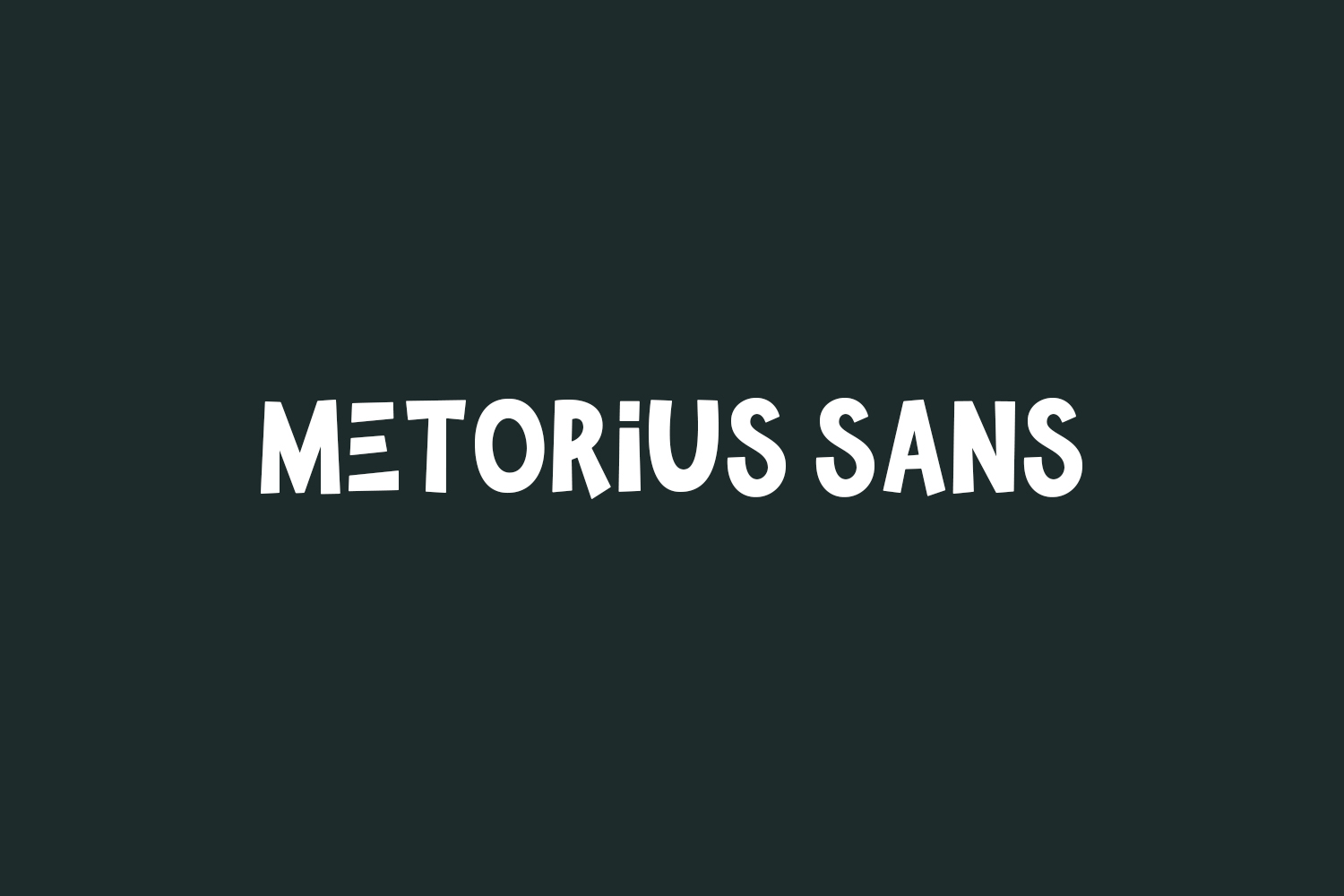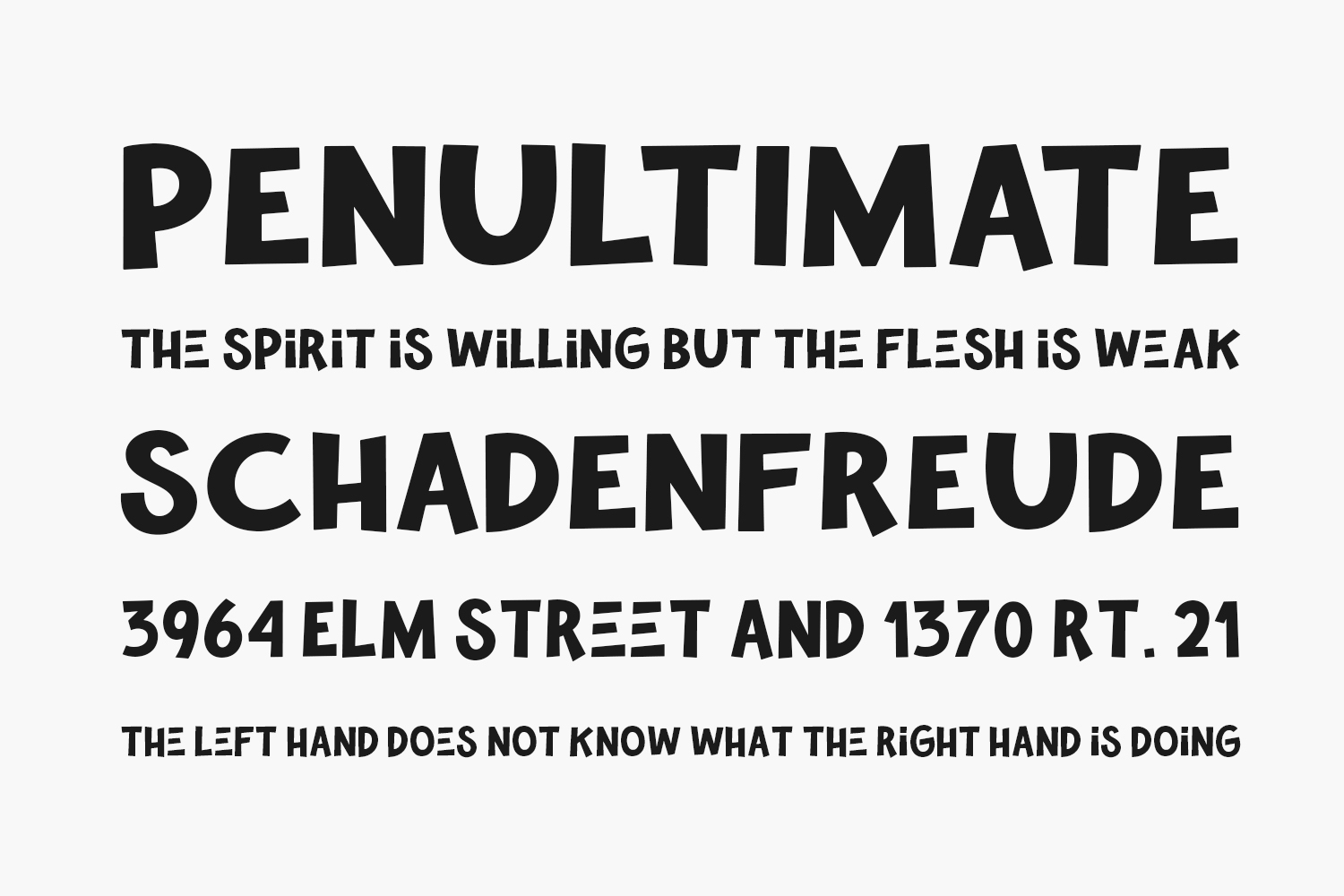
Introducing the fabulous Metorius Sans Free Font, a cartoonish typeface that will add a touch of whimsy and playfulness to any design project. With its bold and clean lines, this font captures the essence of classic cartoons, while its modern twist gives it a contemporary edge.
The Metorius Sans Free Font is perfect for those who want to stand out from the crowd and make a statement with their typography. Whether you’re designing a logo, creating a poster, or just adding some text to your website, this font is sure to make your words pop. With its wide range of weights and styles, you can easily customize your text to fit any project or mood.